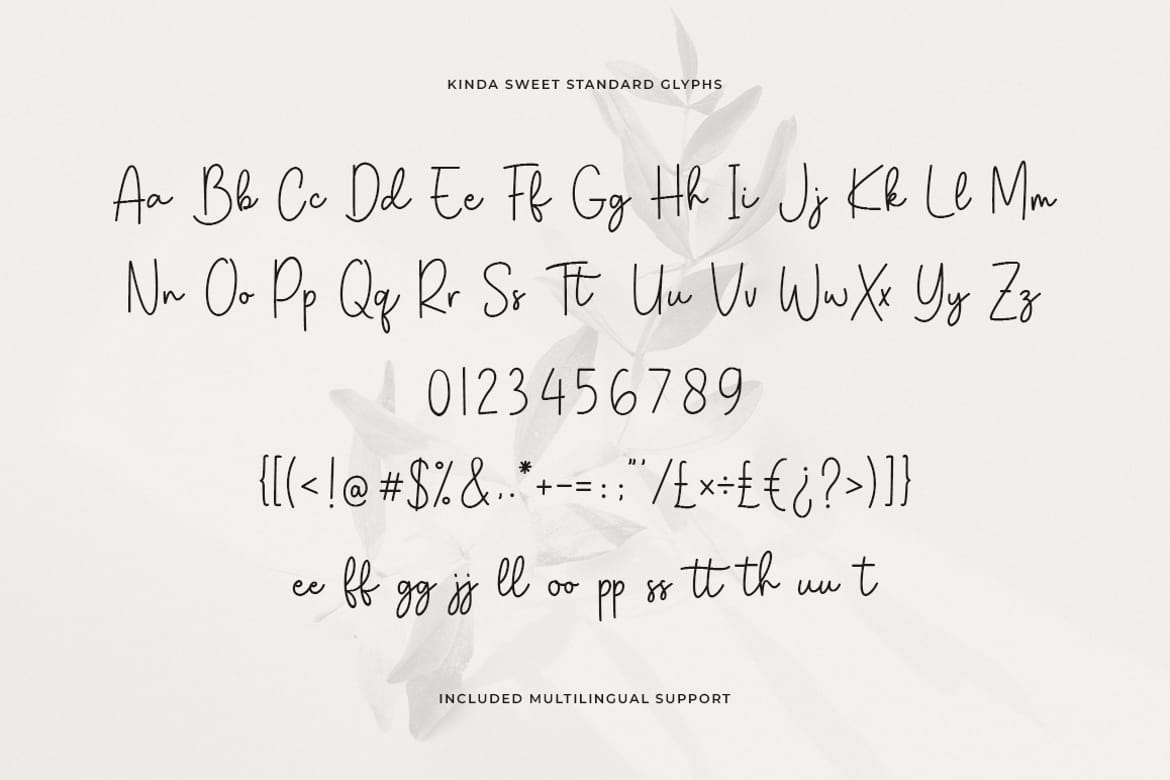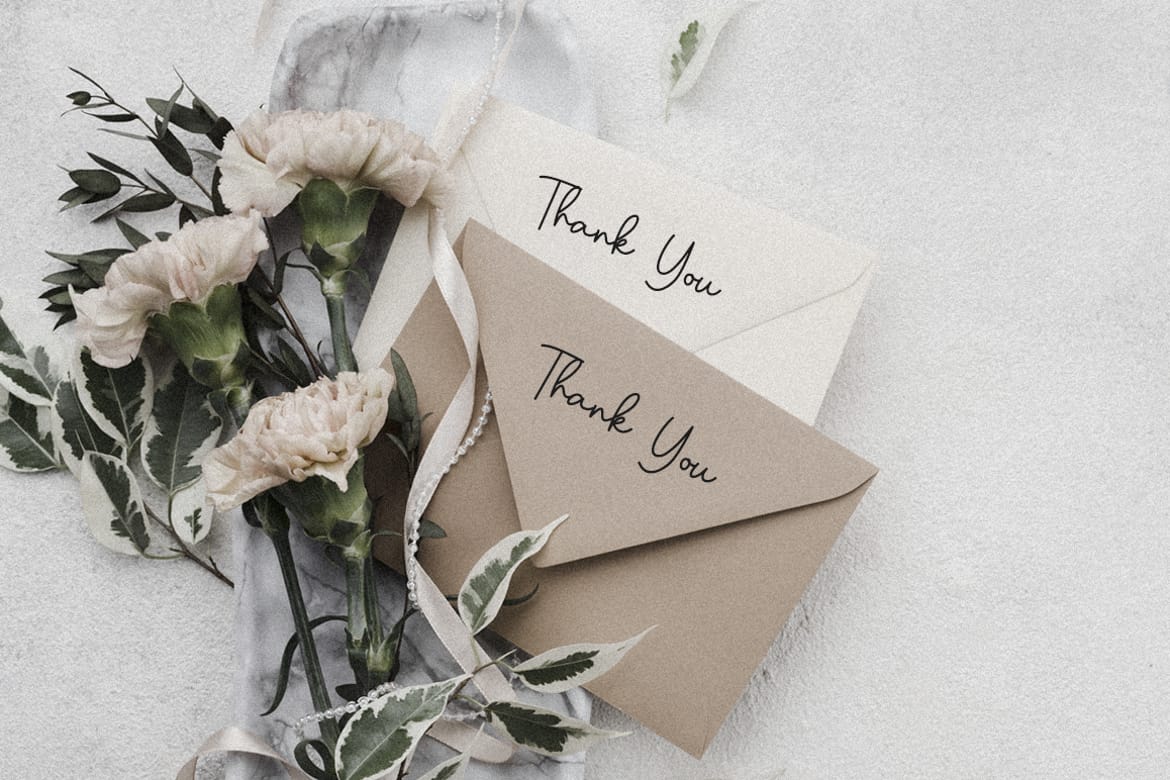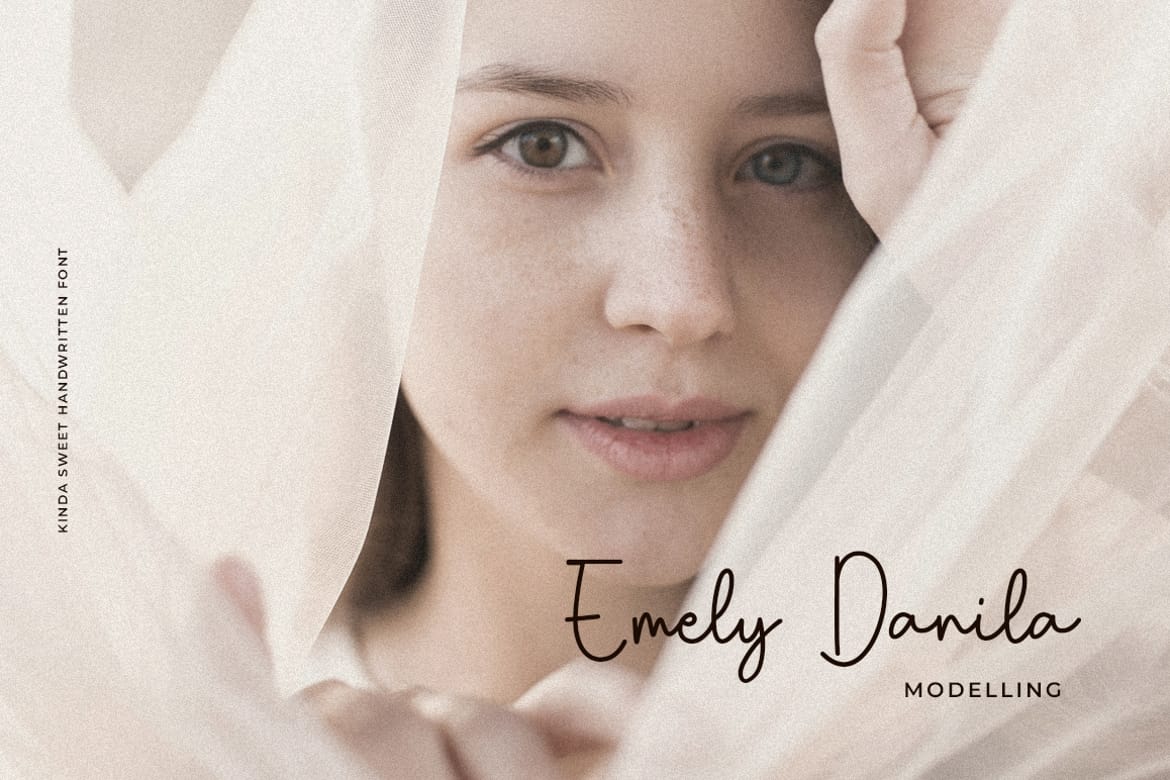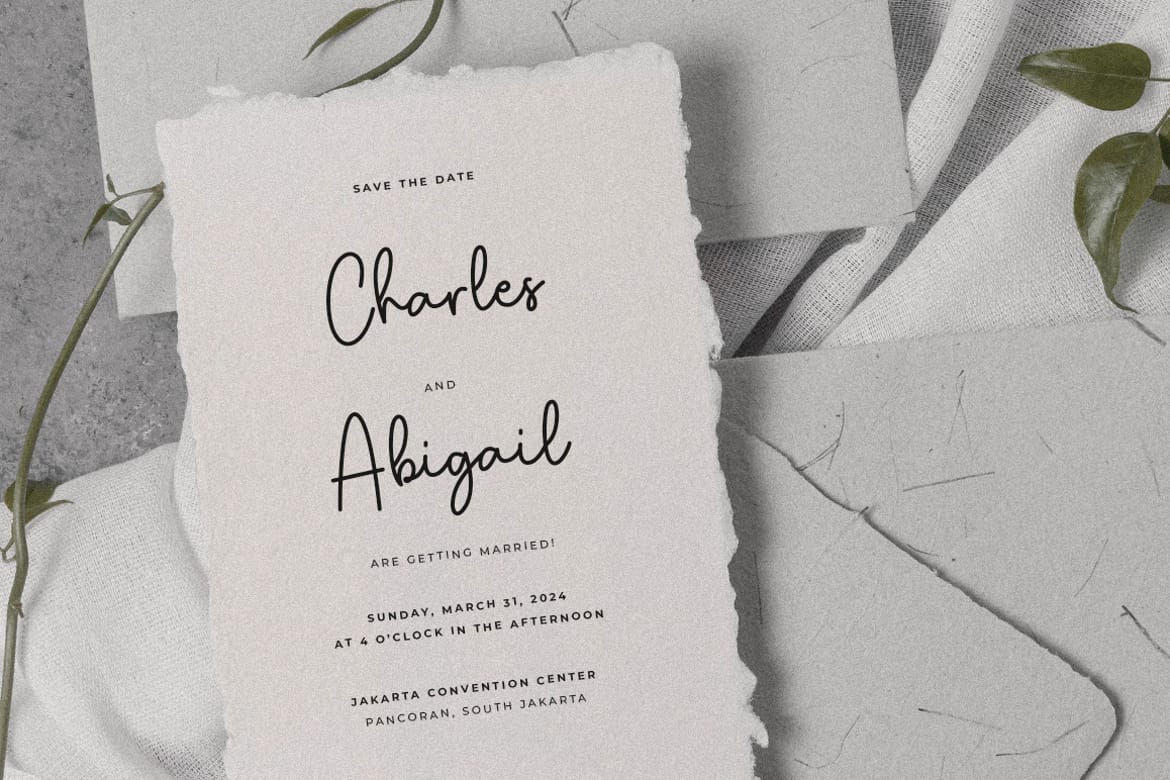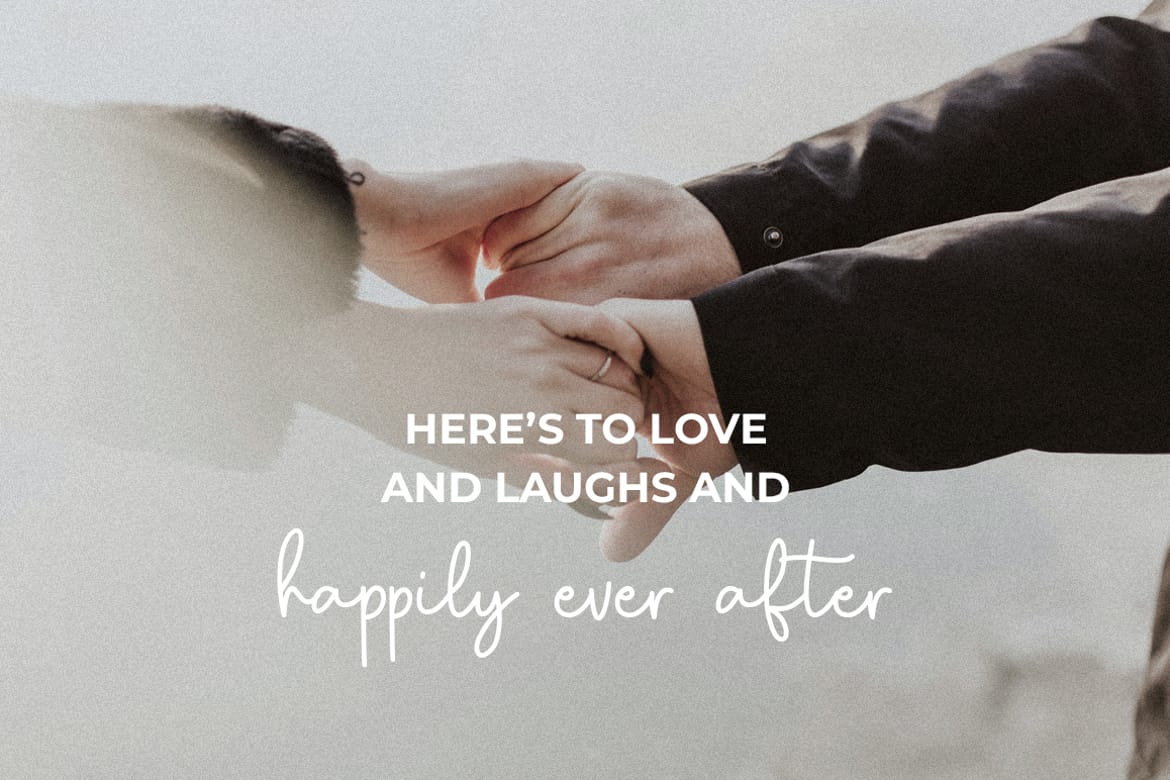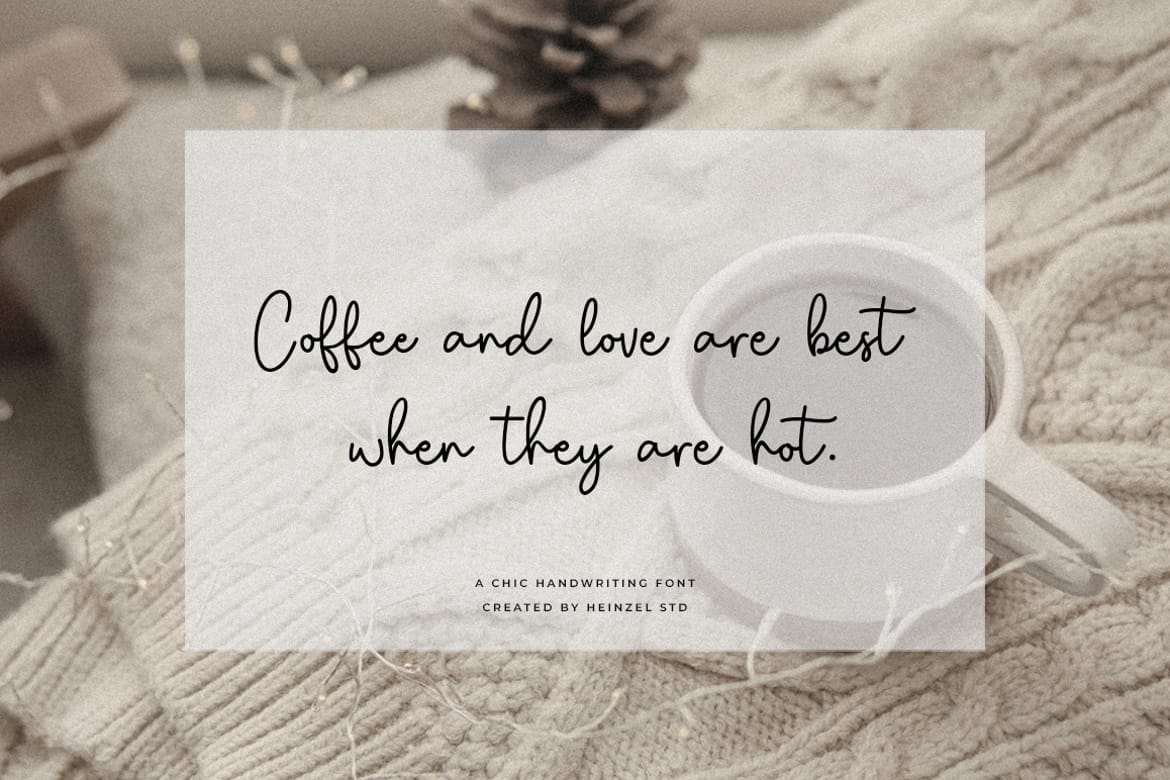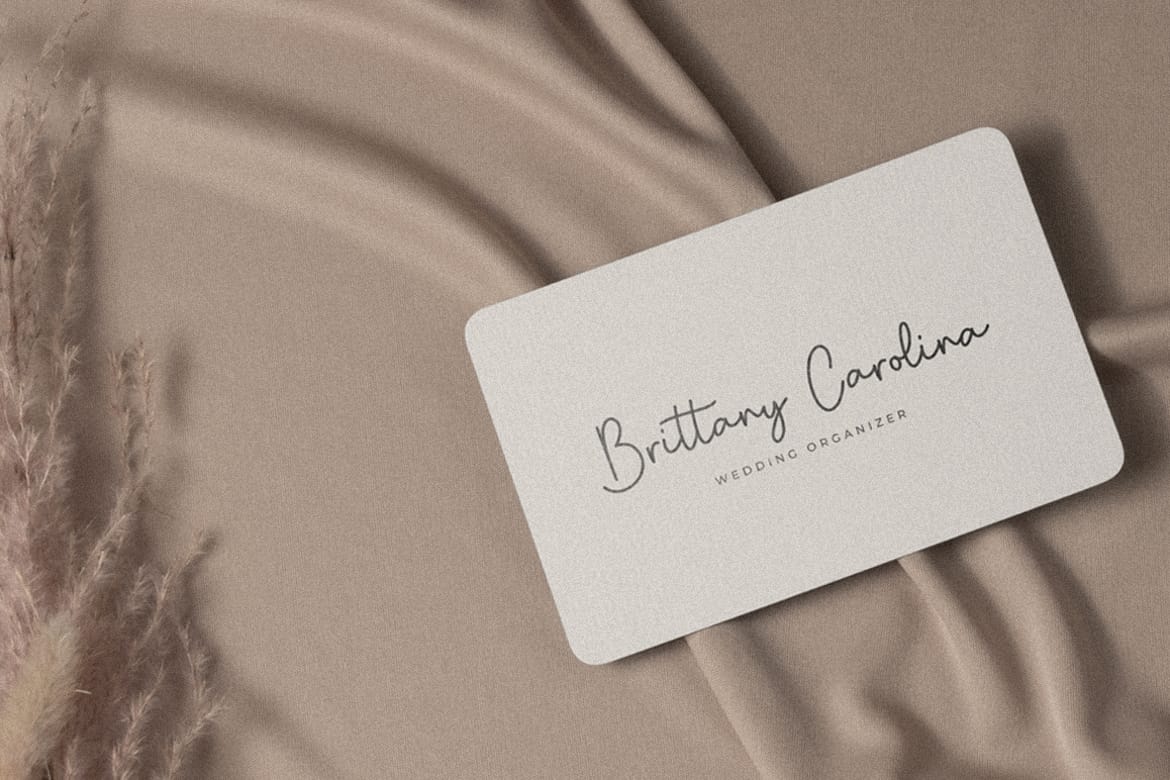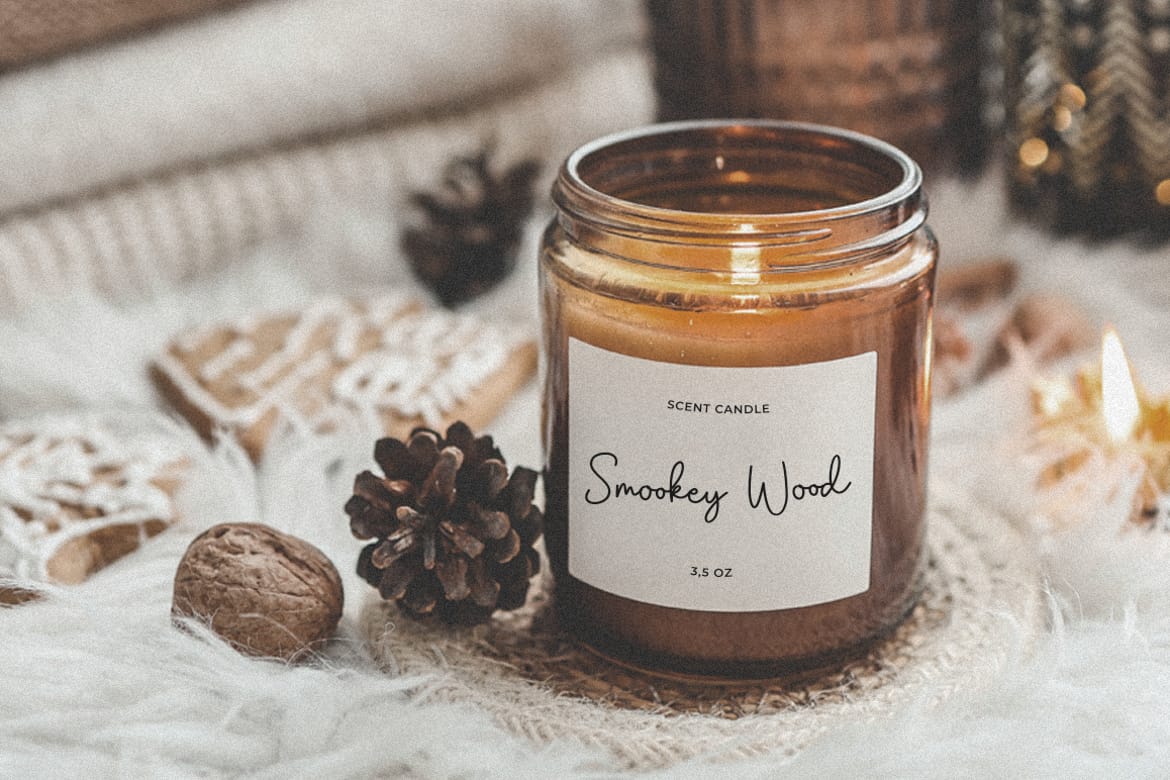
Kinda Sweet is a chic and modern handwritten font designed to bring a natural, personal touch to your creative projects. Featuring smooth handwritten strokes, stylish ligatures, and multilingual support, this font delivers an authentic signature-style feel that is both elegant and easy to read. Perfect for branding, logo design, wedding invitations, social media graphics, packaging, feminine branding, photography watermarks, quotes, and modern lifestyle designs.
With its soft curves and casual handwritten flow, Kinda Sweet creates a warm and charming aesthetic that feels personal and expressive. The carefully crafted ligatures add a seamless handwritten look, making every word appear naturally connected and visually appealing. Whether you are designing for luxury branding or trendy social content, this font adds a stylish and sophisticated character to every project.
Kinda Sweet works beautifully for modern branding, fashion editorials, boutique packaging, greeting cards, and creative templates. Its clean yet playful handwritten style makes it versatile for both professional and personal design needs.
- Multilingual Support
- Ligatures